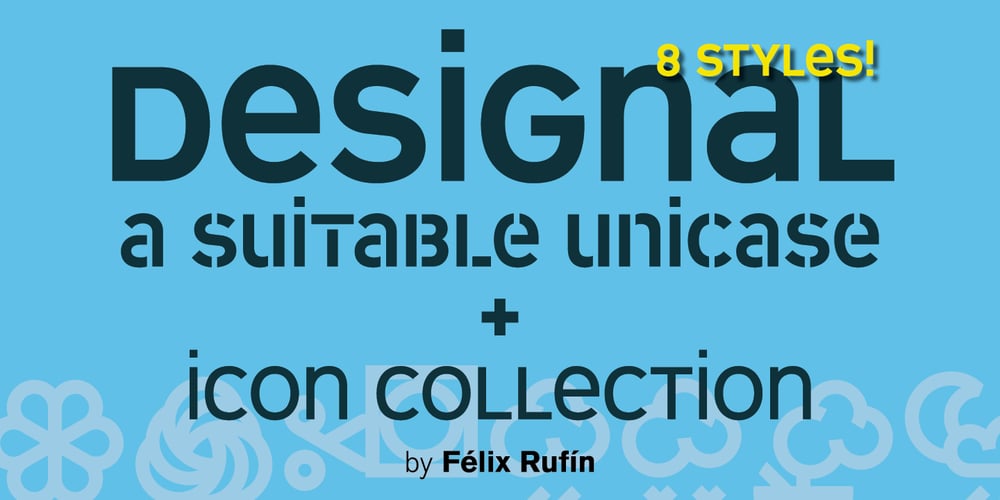
Designal Font Family was designed by Félix Rufín and published by Type-Ø-Tones. Designal contains 8 styles and family package options. Designal is a Félix Rufín design based on the DIN theme. The goal was to create a suitable unicase, an old dream of typographers. The icons collection —more than 400— is a result of Rufín’s obsession with label design. OpenType, 8 styles.